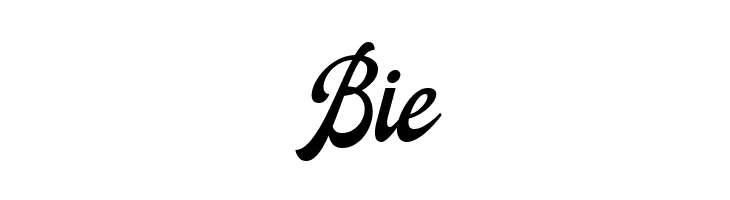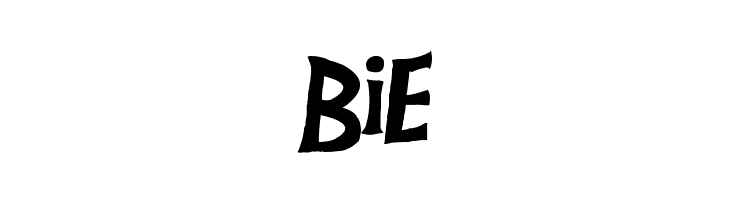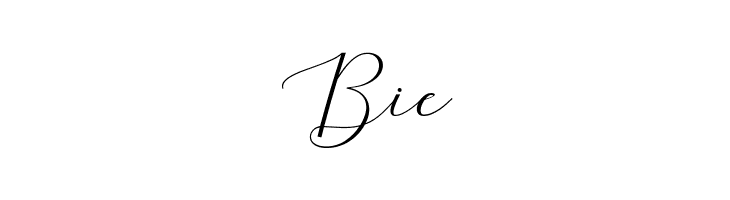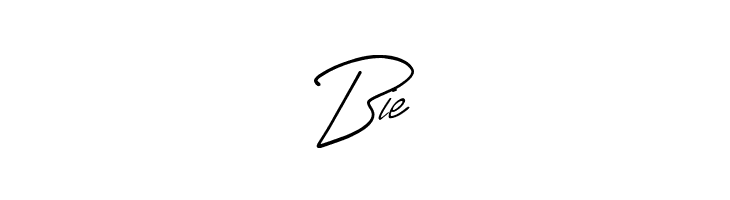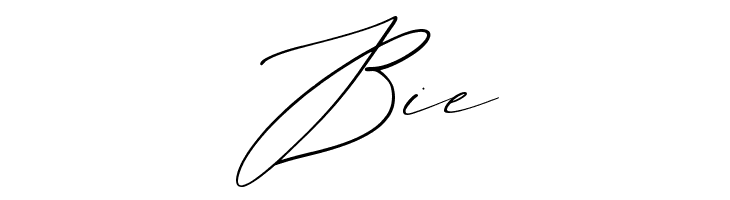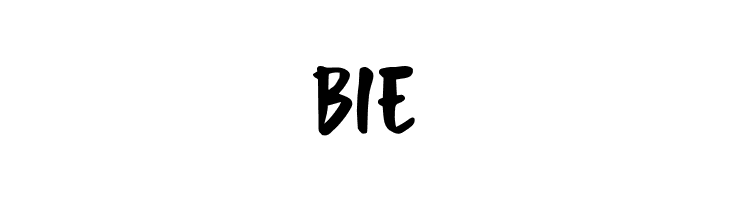
A bold, geometric font with angular shapes and rounded edges, perfect for impactful designs.
A playful, hand-drawn font with bold, irregular strokes and whimsical serifs.
A dynamic and elegant script font with flowing lines and a modern touch.
A sophisticated script font with flowing, connected strokes and elegant curves.
A dynamic and elegant script font with bold strokes and high contrast.
A bold, flowing script font with elegant, interconnected characters.
A bold, dynamic script font with elegant curves and strong presence.
An elegant, flowing script font with high contrast and ornate details.
A modern, elegant script font with flowing cursive style.